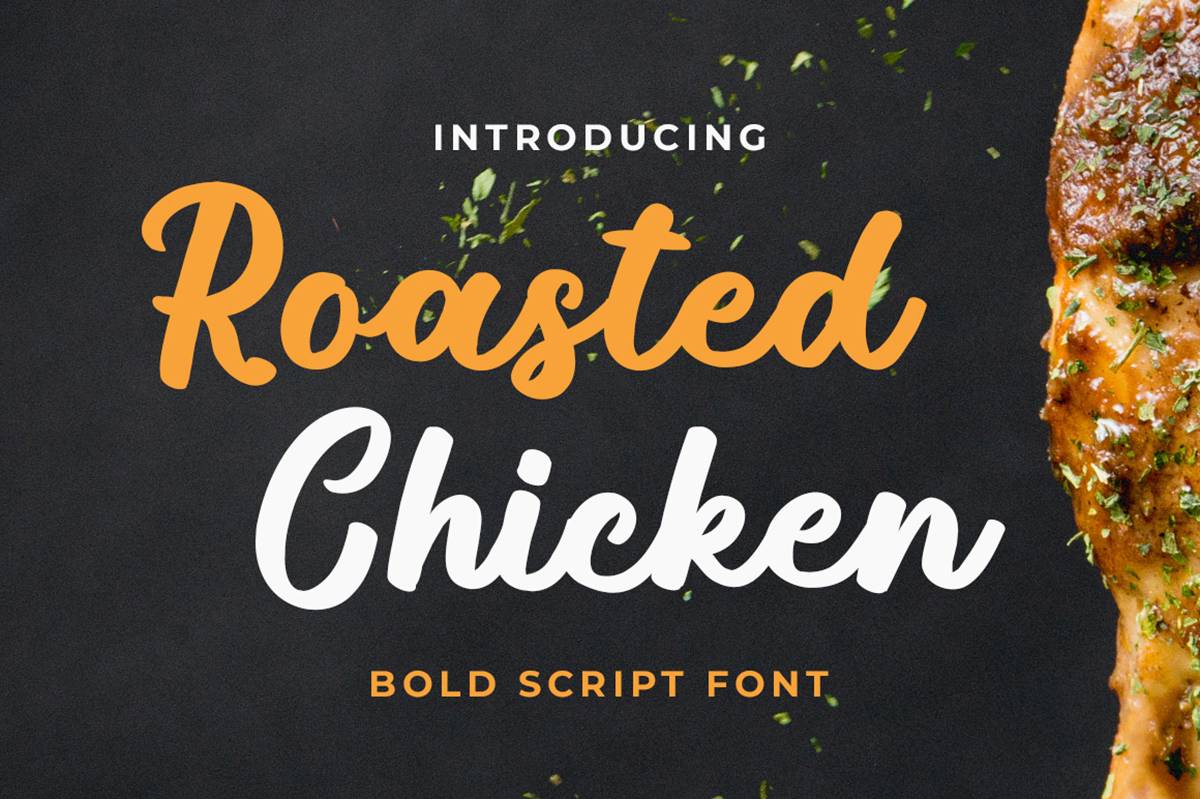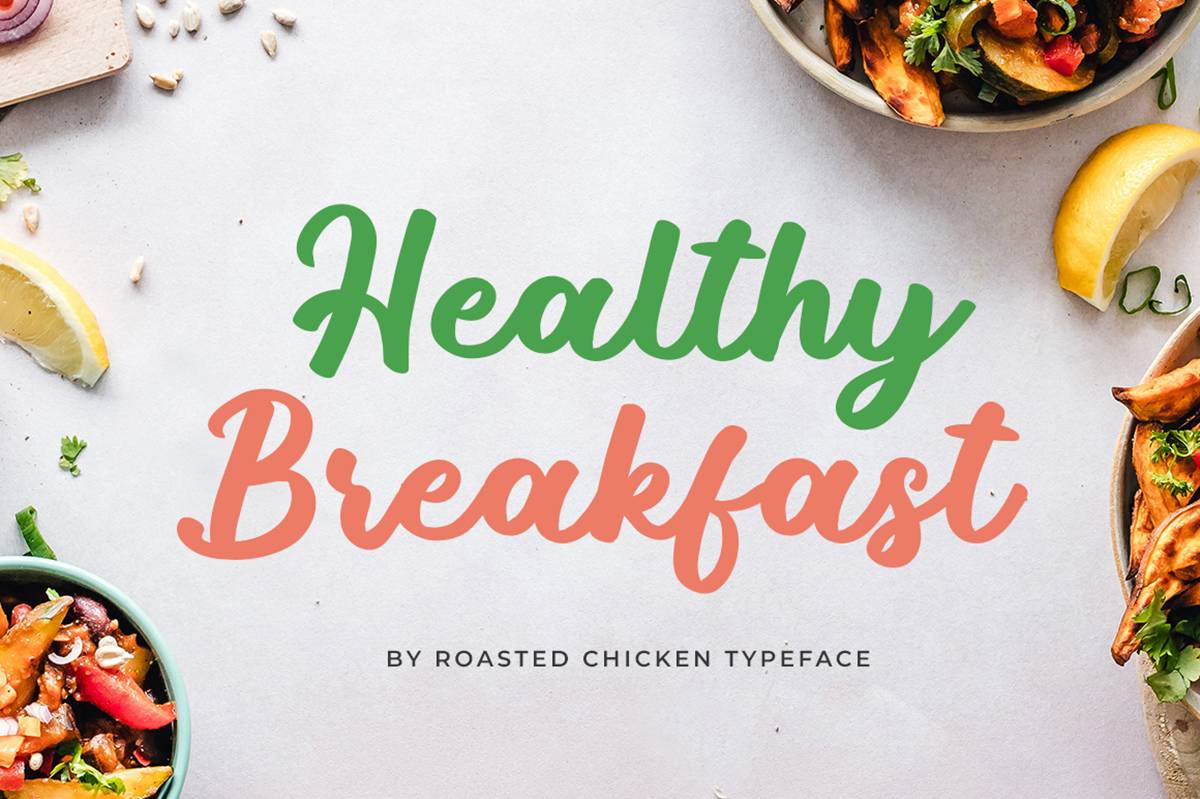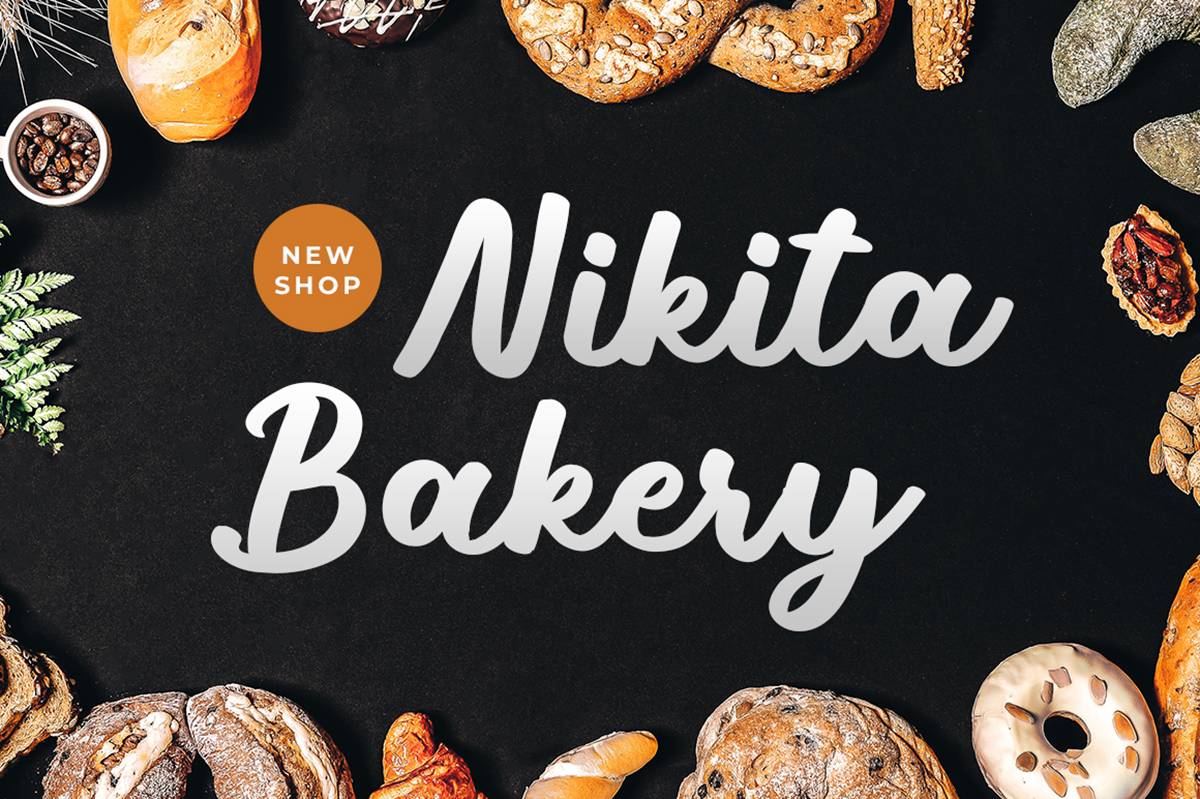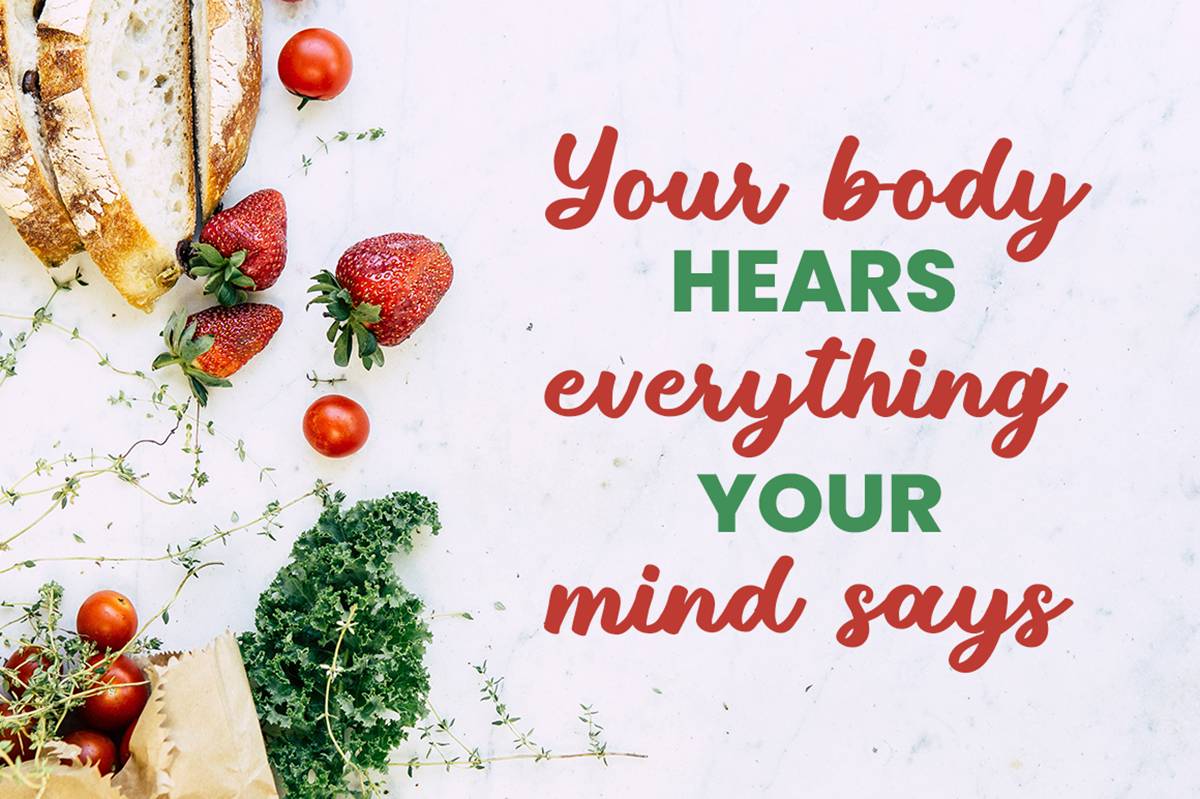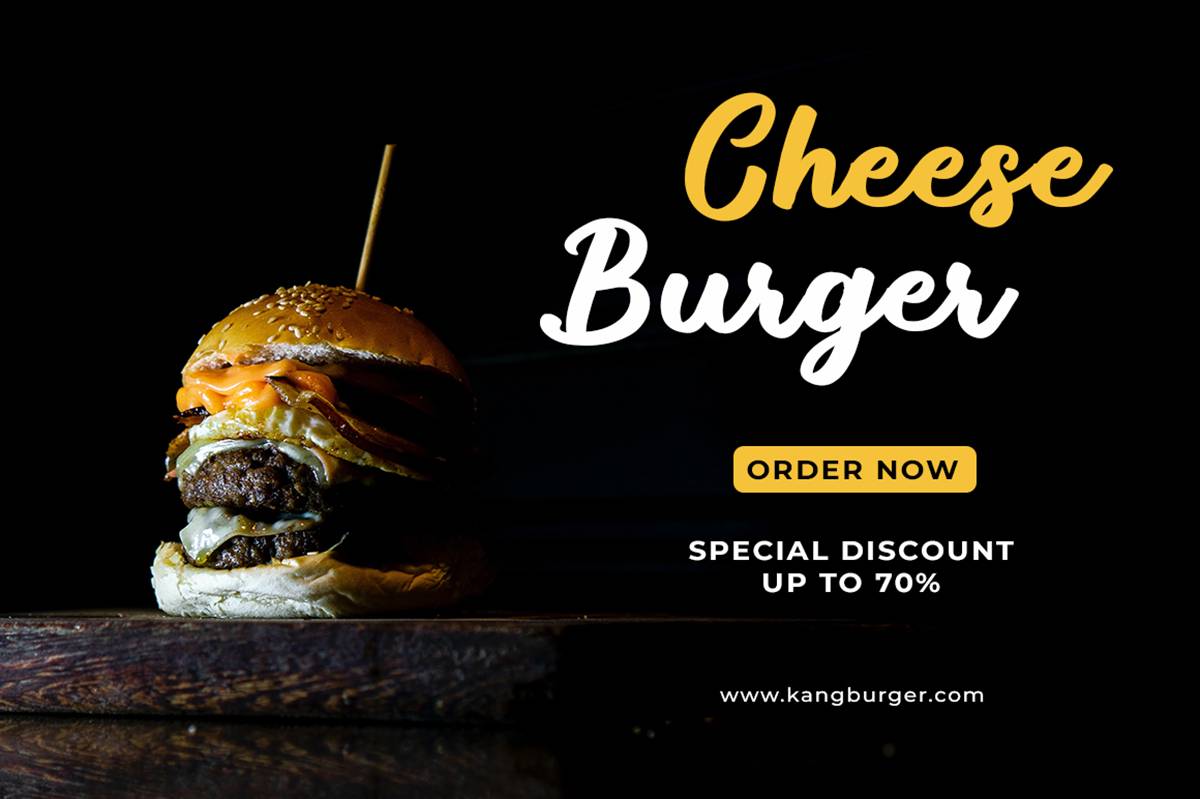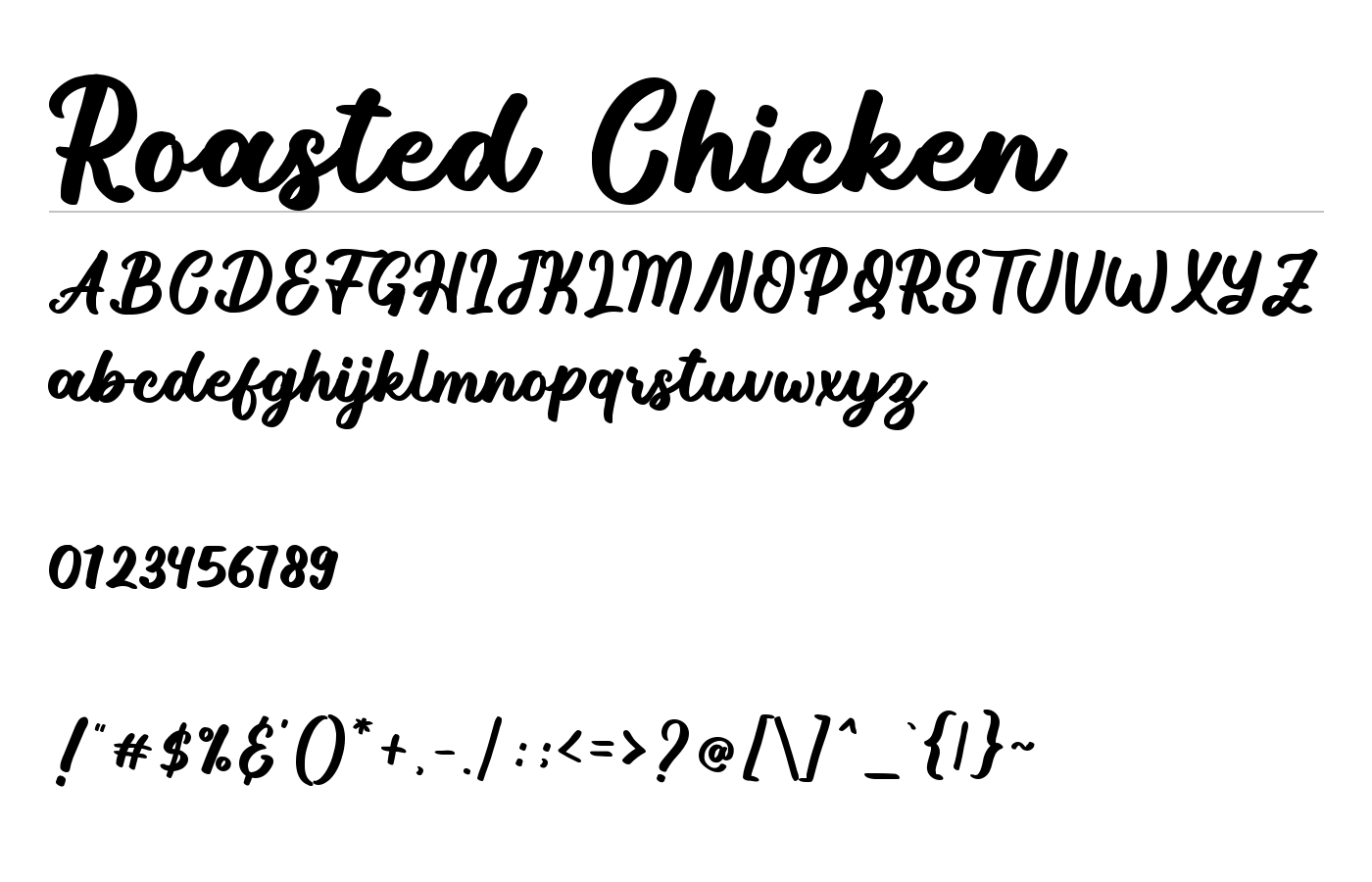
Roasted Chicken is a bold, playful script font that combines smooth, flowing letterforms with a handwritten charm. Its rounded strokes and lively curves create a friendly and approachable feel, making it ideal for casual branding, creative logos, and inviting headlines. This font works well in designs that need a warm, energetic touch without sacrificing readability.
Roasted Chicken Font
About Roasted Chicken Font
| Font family | Roasted Chicken Font |